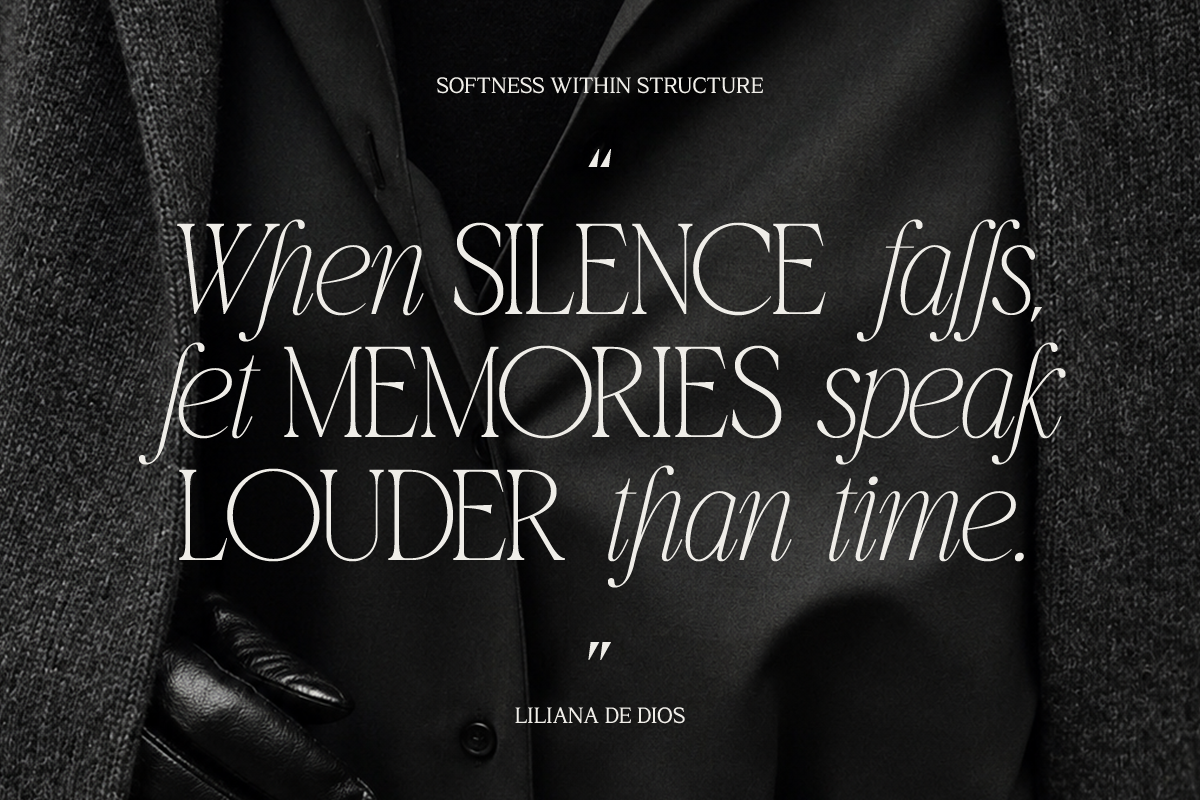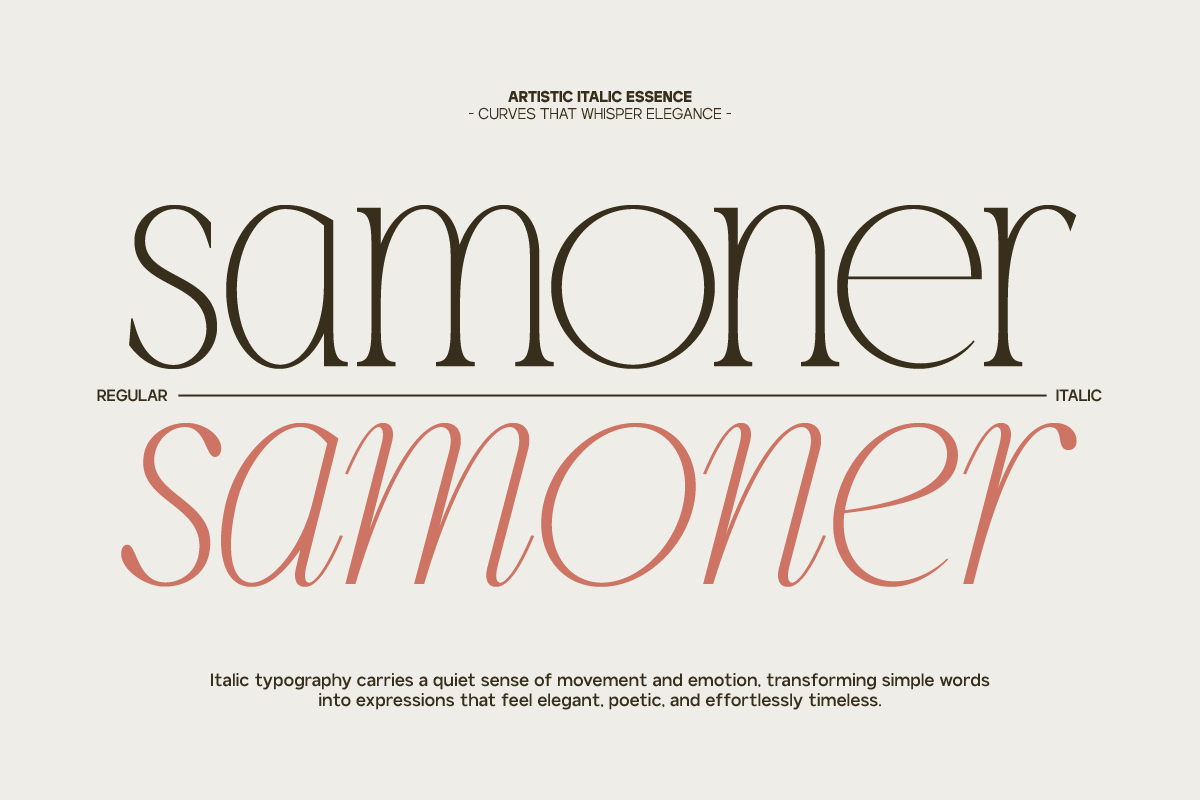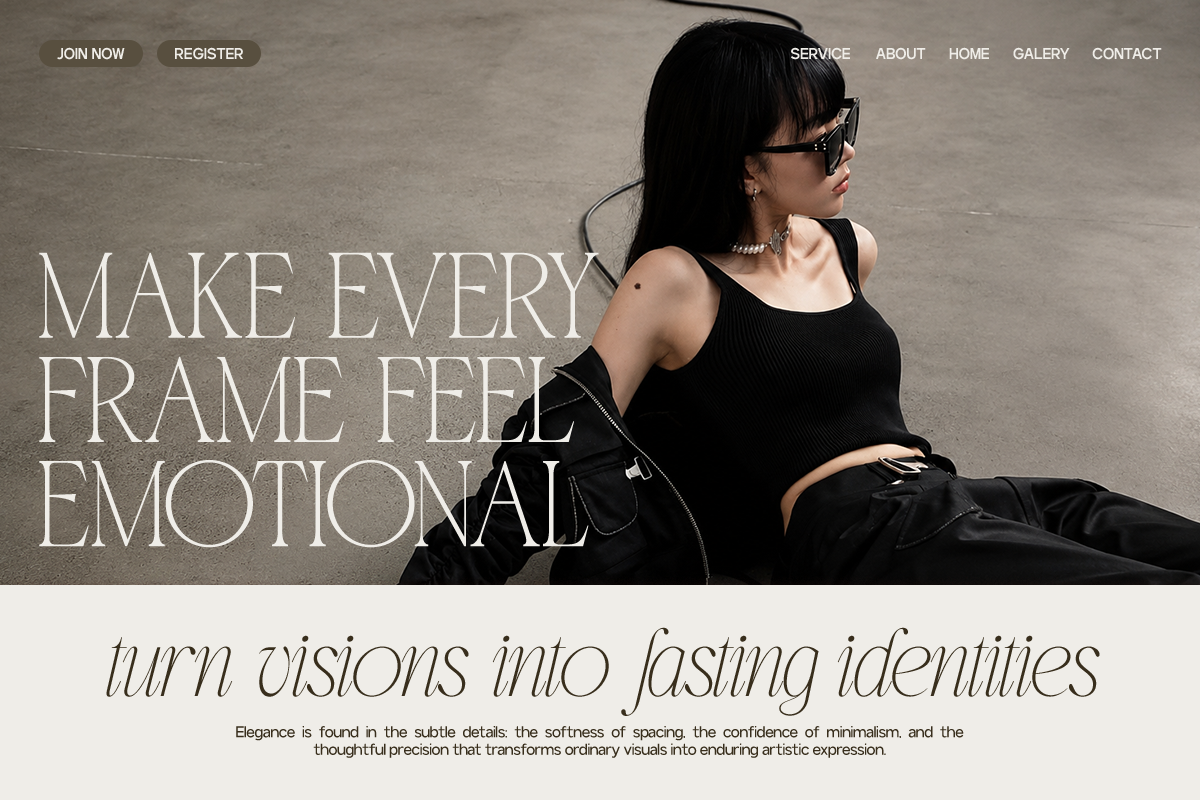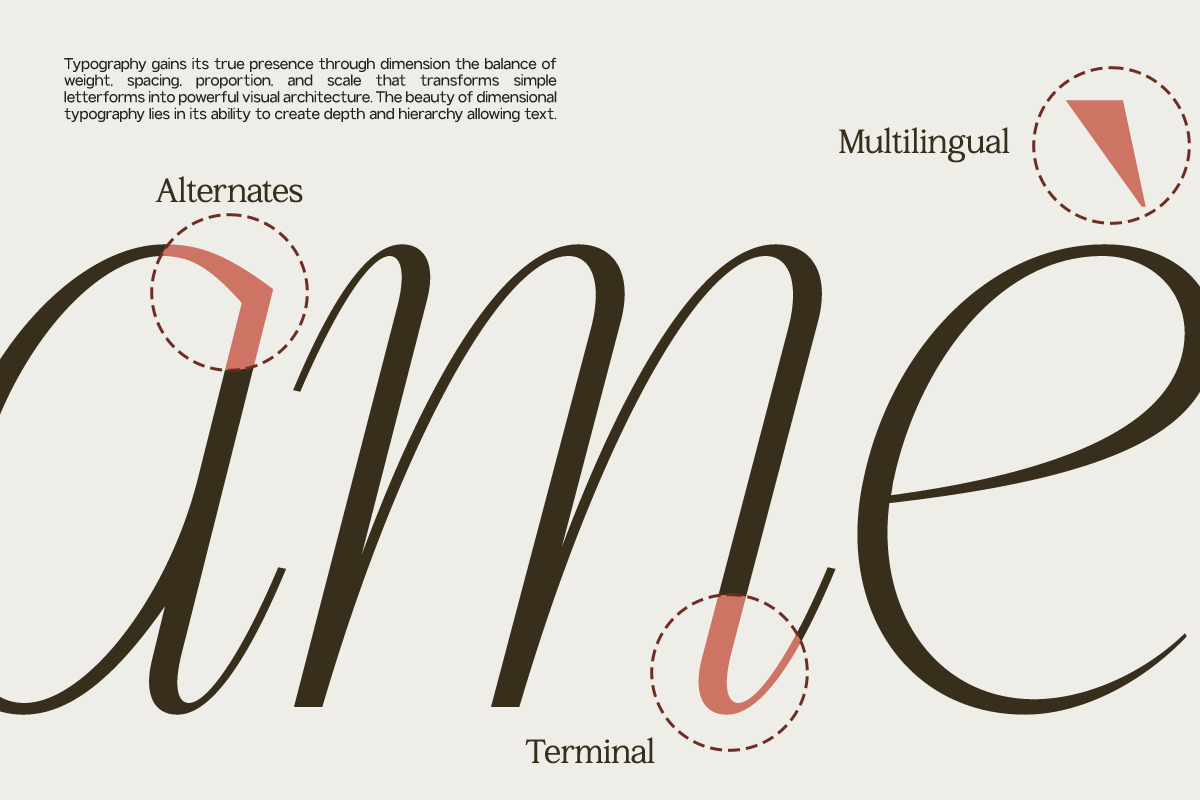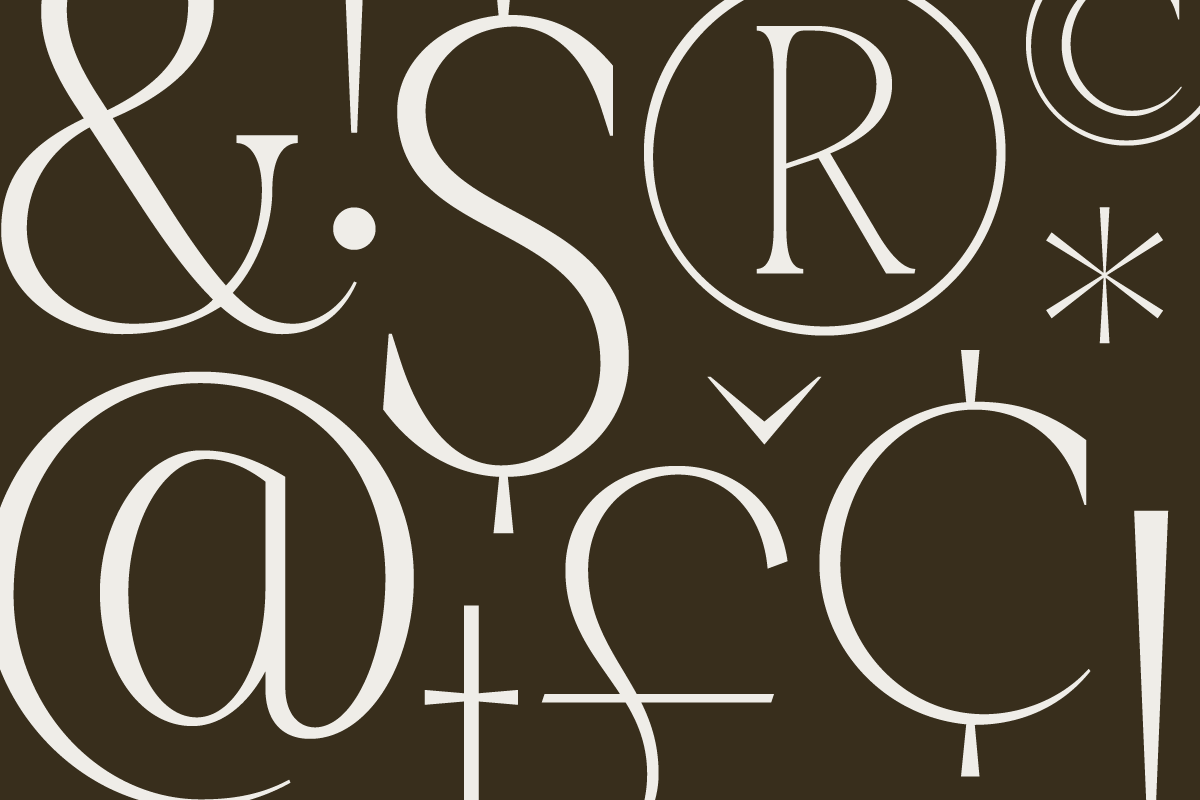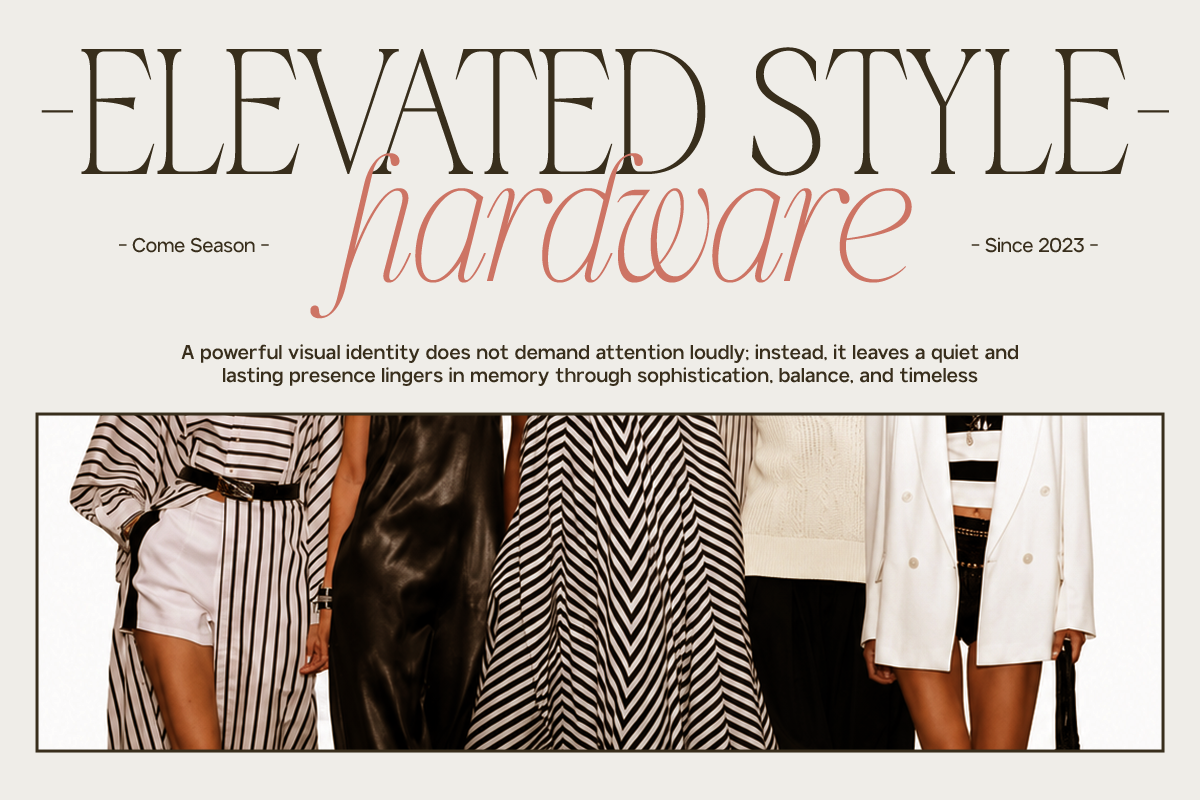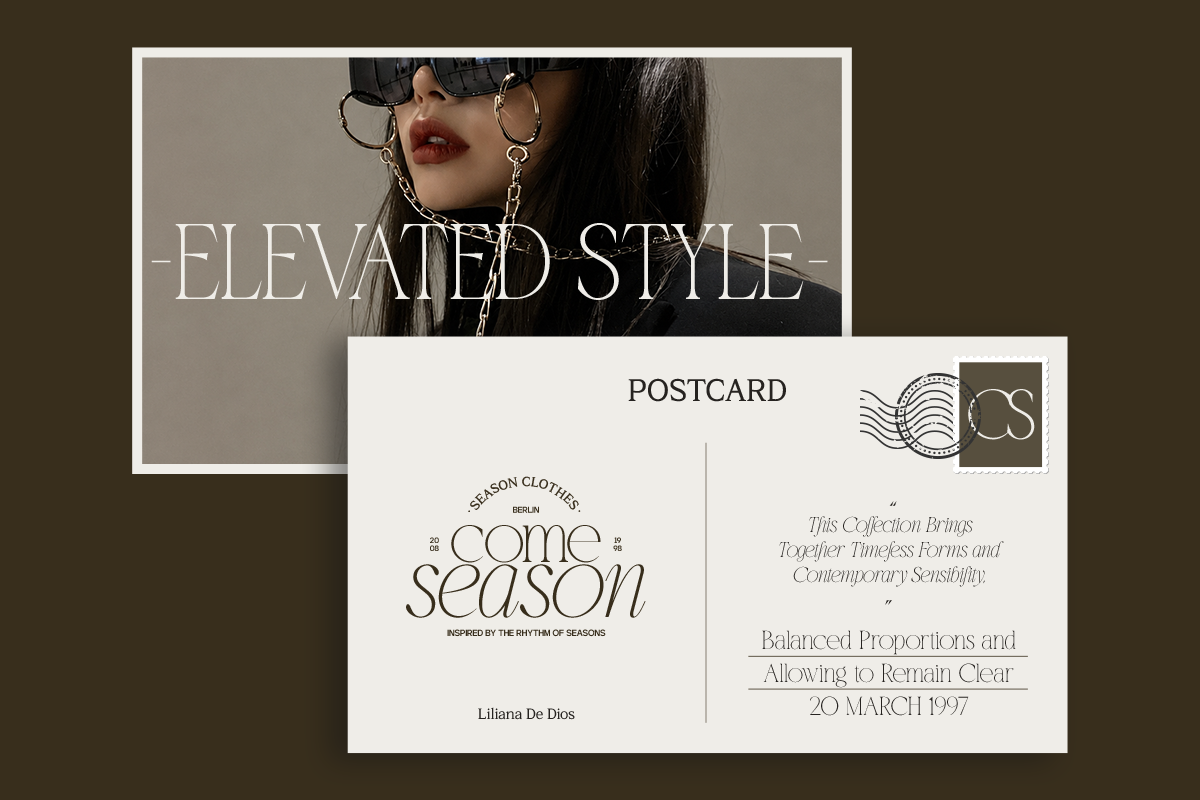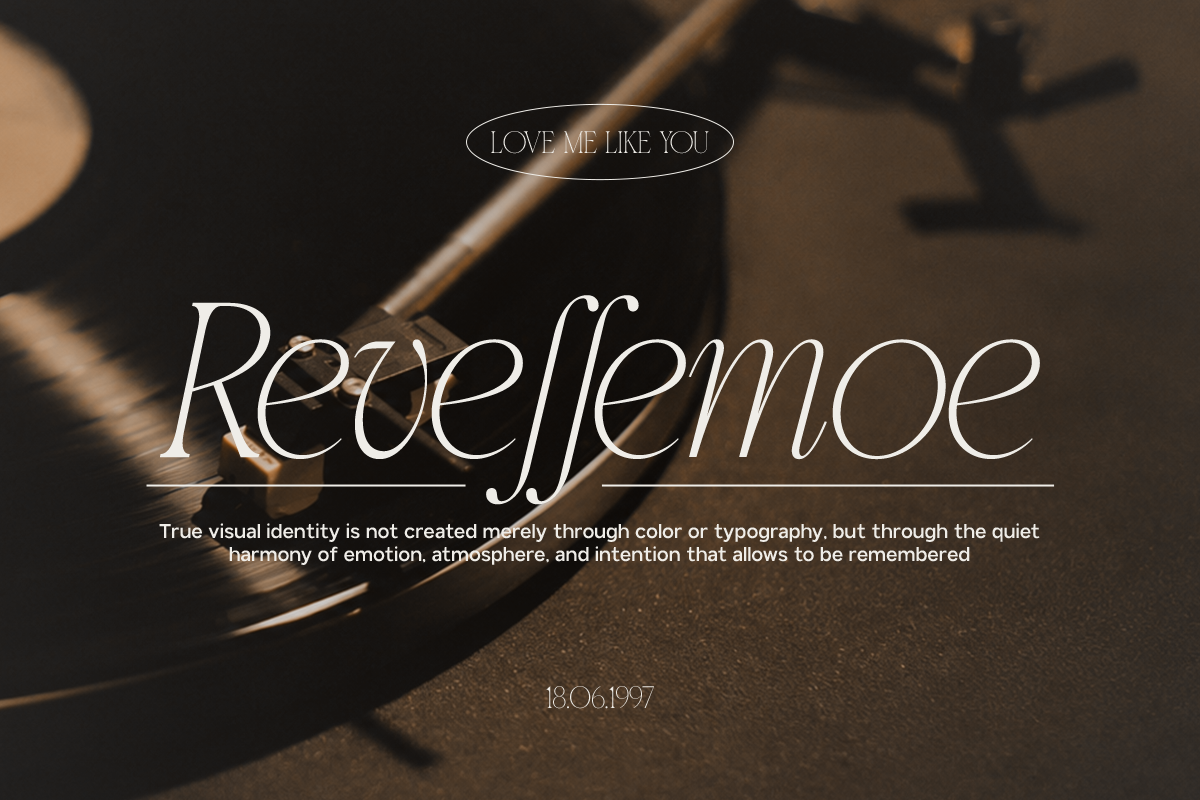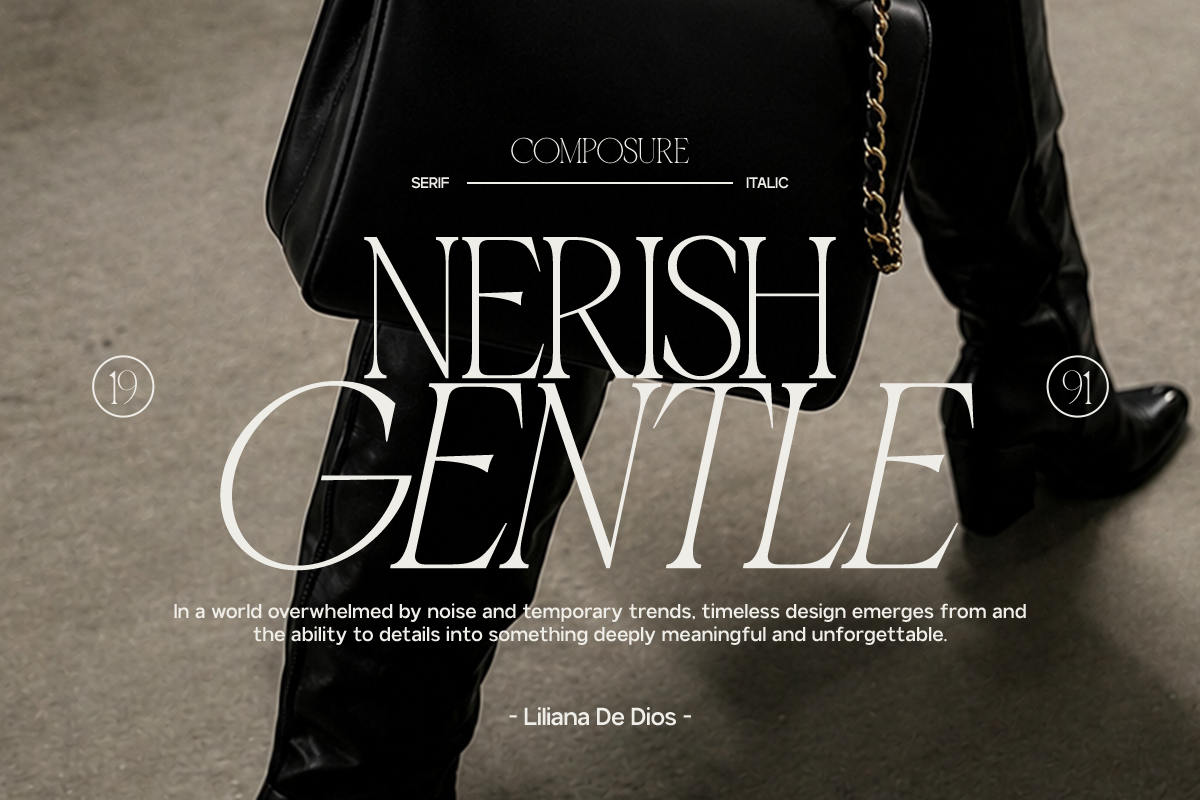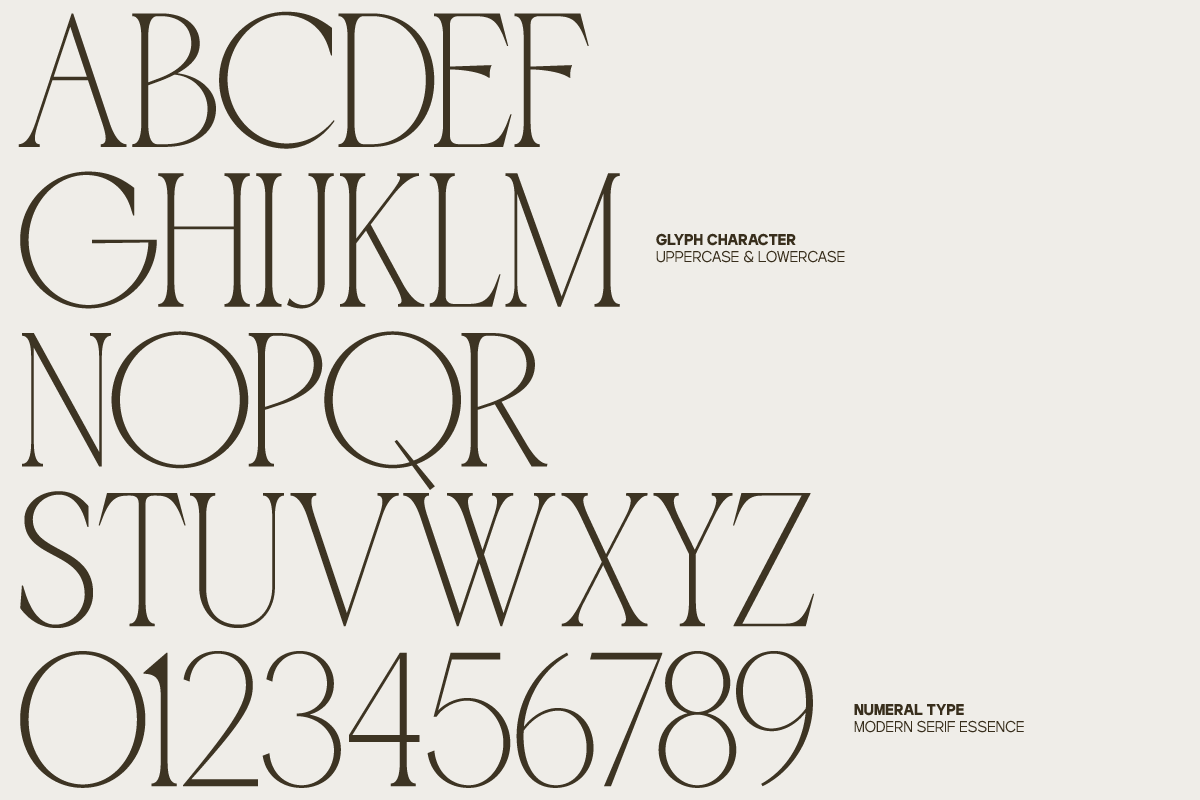
GC Ballerina - Stylish Serif Italic
GC Ballerina – Stylish Serif Italic is a modern elegant serif typeface that blends timeless sophistication with graceful italic movement. Designed with high-contrast strokes, elongated proportions, and refined serif details, it creates a luxurious visual style that feels expressive, feminine, and effortlessly chic.
Perfect for fashion branding, beauty products, wedding invitations, luxury packaging, magazine editorials, logos, and premium social media designs, GC Ballerina delivers a distinctive display presence while maintaining excellent readability.
Featuring stylish ligatures, elegant alternates, and multilingual Latin support, GC Ballerina gives designers the flexibility to create refined typography with a polished, contemporary aesthetic.
Stylish Serif Italic Typeface
Elegant High-Contrast Serif Design
Flowing Italic Letterforms
Refined Ligatures & Alternates
Graceful Luxury Editorial Style
Perfect for Fashion, Beauty & Wedding Branding
Ideal for Logos, Packaging & Magazine Headlines
Multilingual Support (170+ Latin-Based Languages)
Bring graceful elegance and modern luxury to every design with GC Ballerina.